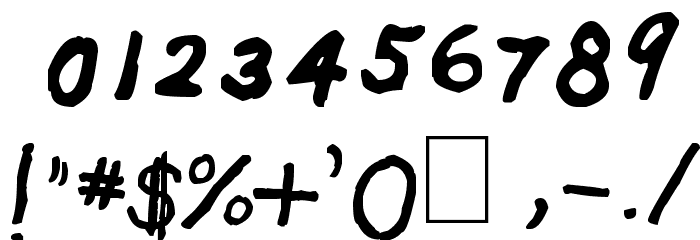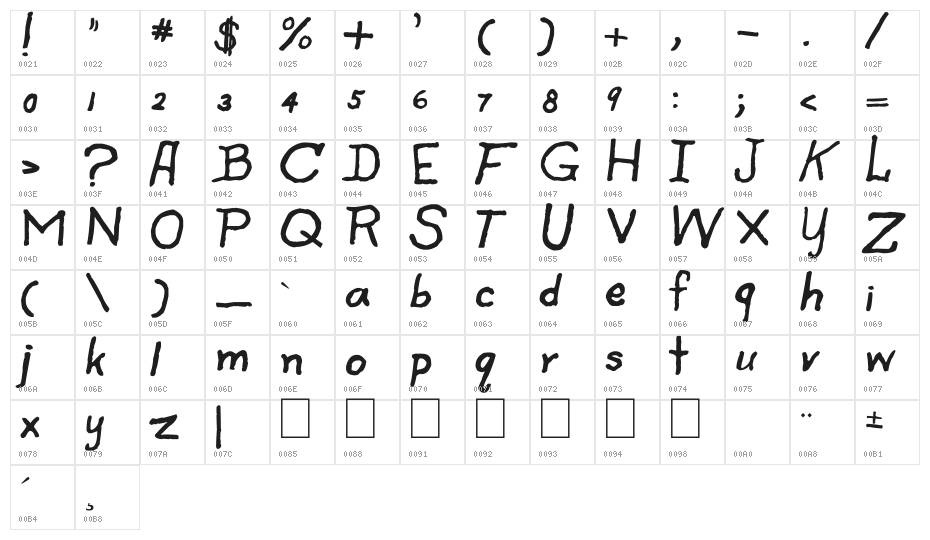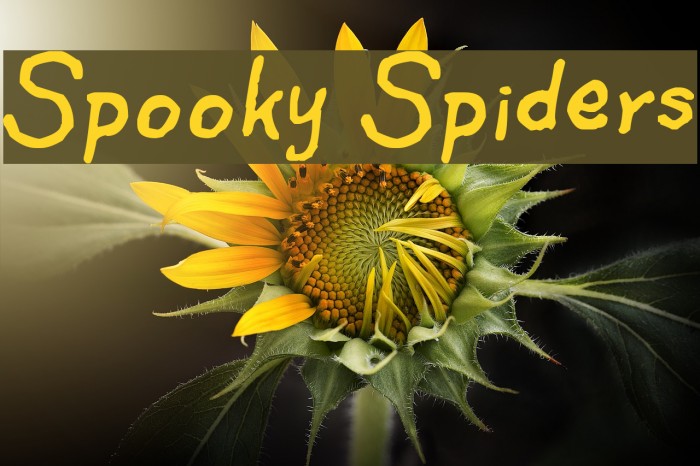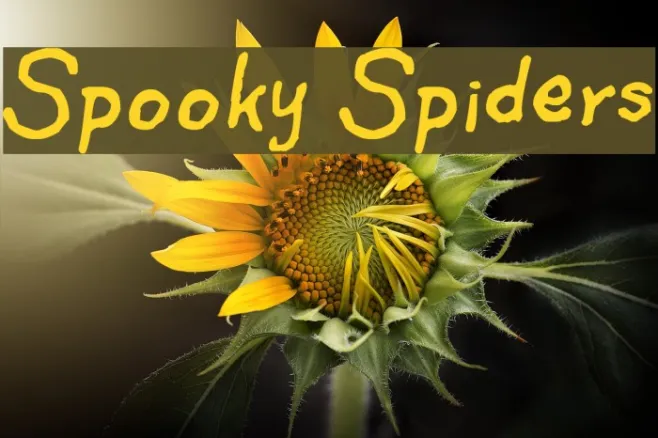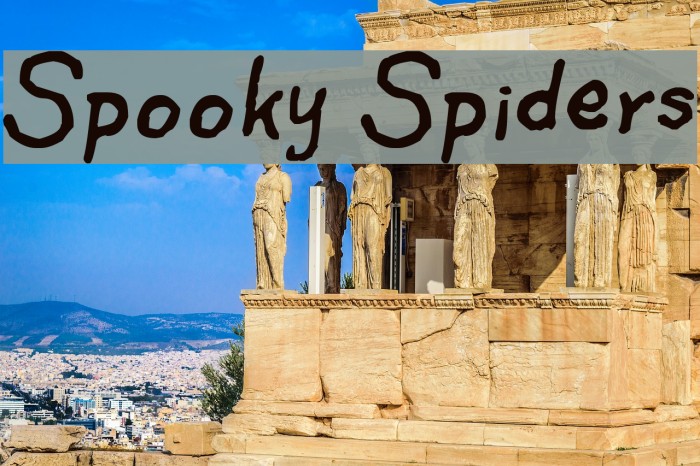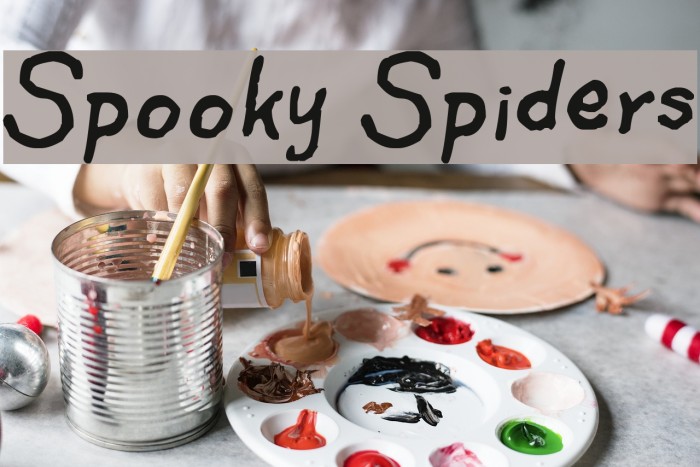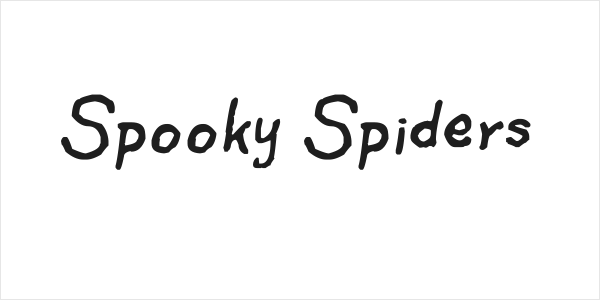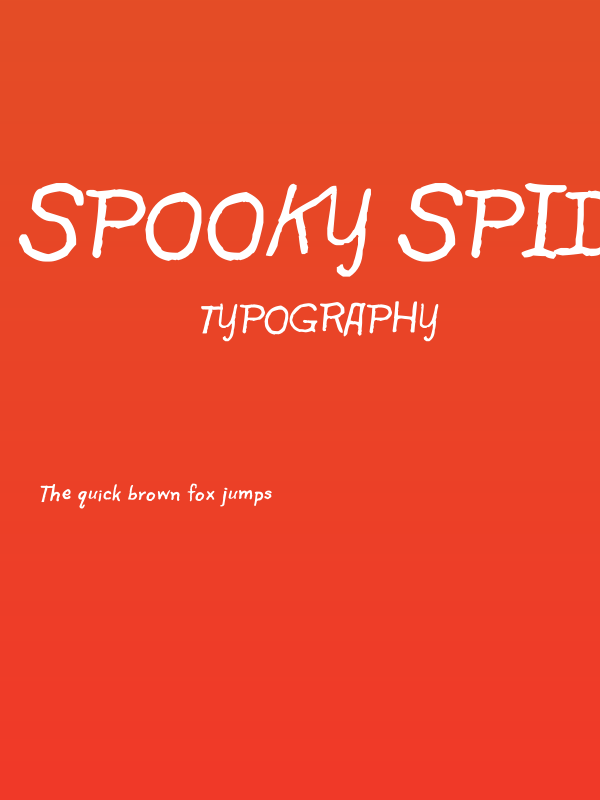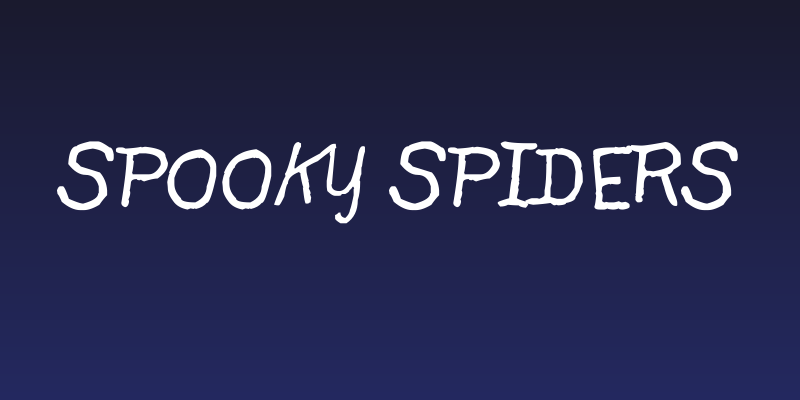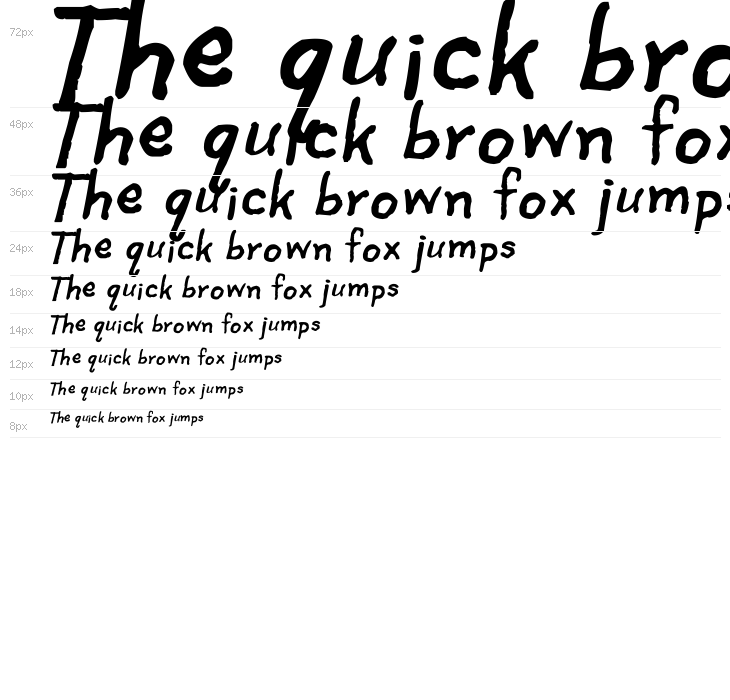
Spooky Spiders Font
This font exudes a playful and slightly eerie vibe, perfect for Halloween-themed projects. The letters are irregular and wavy, giving them a hand-drawn appearance that adds to the spooky aesthetic. The uppercase and lowercase letters maintain a consistent style, with the uppercase being slightly taller and more elongated. Numbers and special characters follow the same whimsical design, making them suitable for creative and informal uses. The strokes are uneven, enhancing the font's quirky and fun character.